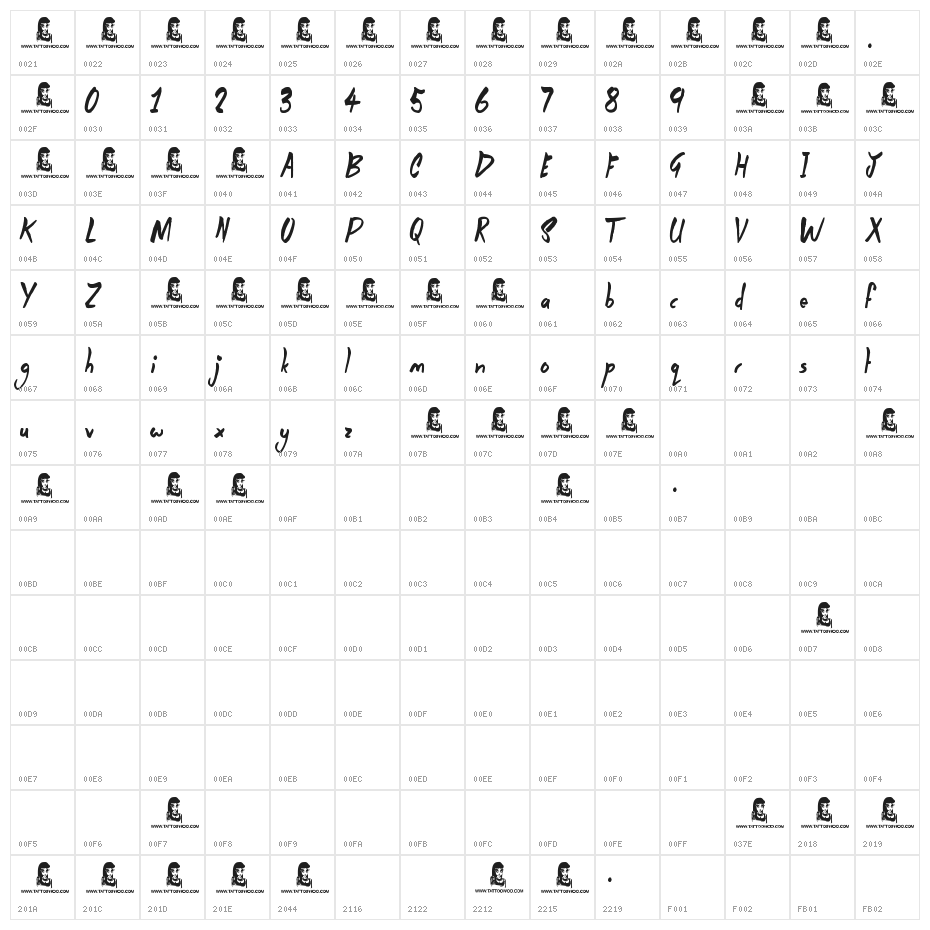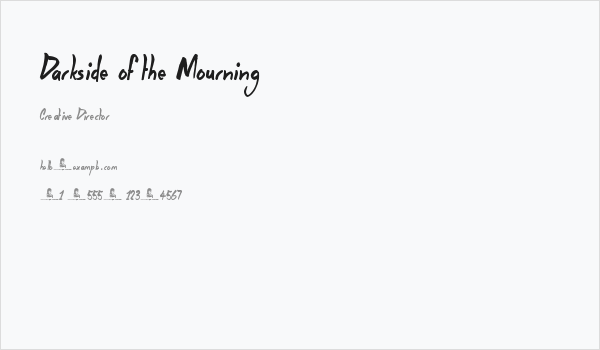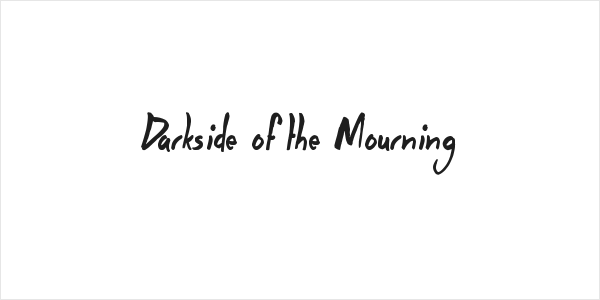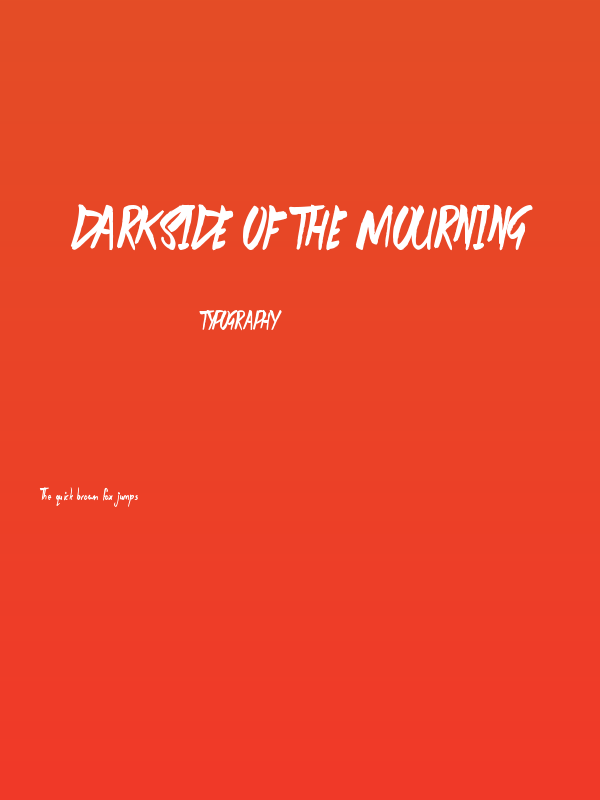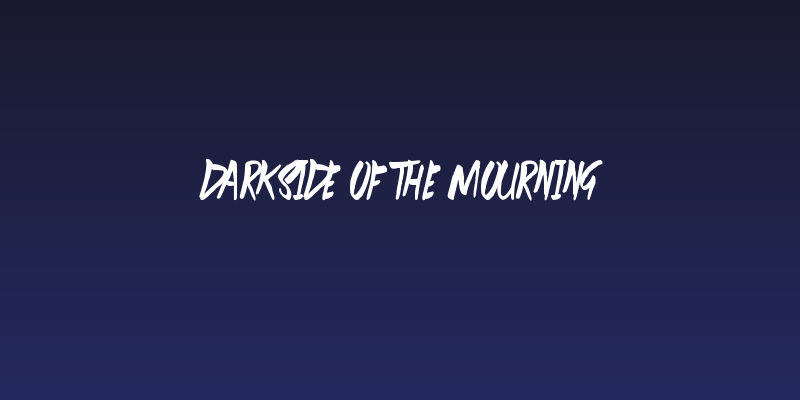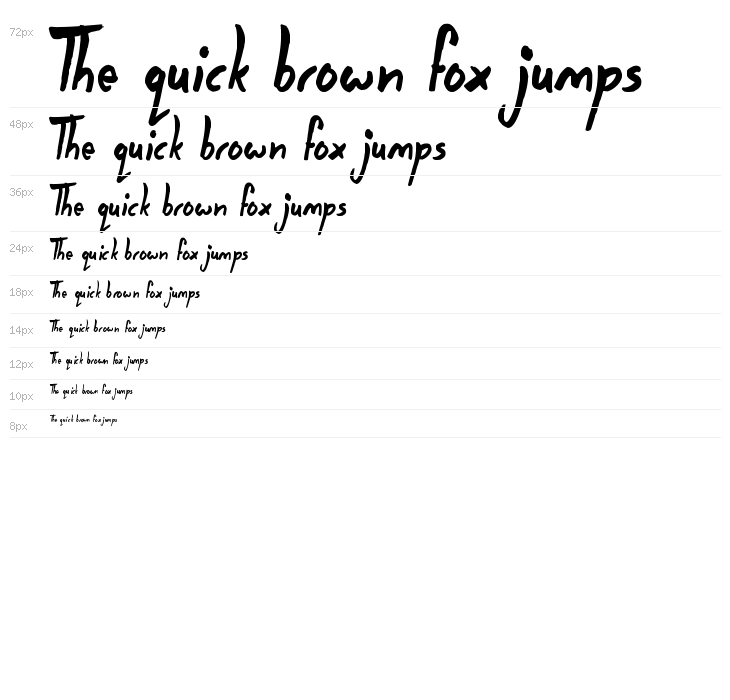
Darkside of the Mourning Font
Darkside of the Mourning Description
This font features a bold, handwritten style with a dynamic and energetic appearance. The letters are slightly slanted, giving a sense of movement and fluidity. The uppercase letters are tall and commanding, while the lowercase letters maintain a consistent flow, enhancing readability. The numbers are bold and clear, matching the overall aesthetic. The special characters are well-integrated, maintaining the font's cohesive look. This font is ideal for projects that require a personal touch or a creative flair.
| Proposed Projects | Ideal for creative projects such as posters, album covers, branding, and social media graphics. |